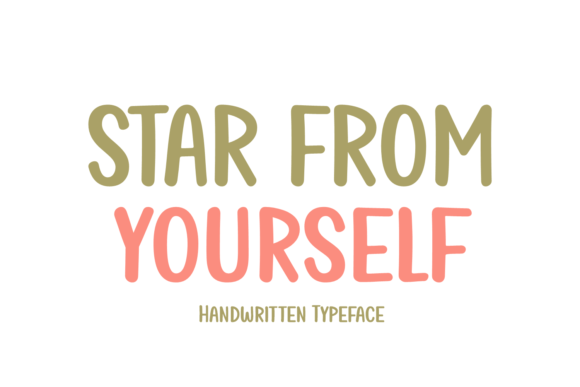
Introducing Star from Yourself Font, the ultimate choice for your apparel brand! Created by the talented KristoperRansz, this sweet and friendly handwritten font will instantly captivate your audience and elevate your designs to new heights.
With its natural and unique style, Star from Yourself Font adds a touch of authenticity and personality to any project. Whether you're designing a logo, creating stunning apparel, or crafting eye-catching social media graphics, this font is your secret weapon in standing out from the crowd.
Imagine the impact of beautifully crafted fonts that effortlessly convey your brand's message. Star from Yourself Font enables you to do just that. Its versatility allows you to explore endless possibilities, making it a must-have for any apparel brand looking to make a statement.
This font is more than just a tool; it's a gateway to creativity. It opens up a world of opportunities for you to express yourself and tell your brand's story in the most captivating way possible. Let your imagination run wild as Star from Yourself Font becomes your trusted companion in bringing your vision to life.
Infuse your designs with emotion and personality. Watch as the strokes of this handwritten font effortlessly evoke feelings of warmth, friendliness, and approachability. Transform your apparel into wearable art that resonates with your target audience on a deeper level.
But the benefits don't stop there. Star from Yourself Font also comes with a variety of charming extras, including ligatures and swashes, to add an extra touch of elegance and flair to your typography. These delightful details will leave a lasting impression and ensure that your designs are nothing short of extraordinary.
So why wait? Unleash your creativity and take your apparel brand to new heights with the Best Fonts For Apparel Brand - Star from Yourself Font. Stand out from the competition, make a lasting impact, and leave your customers craving more. The power to captivate and inspire is at your fingertips.